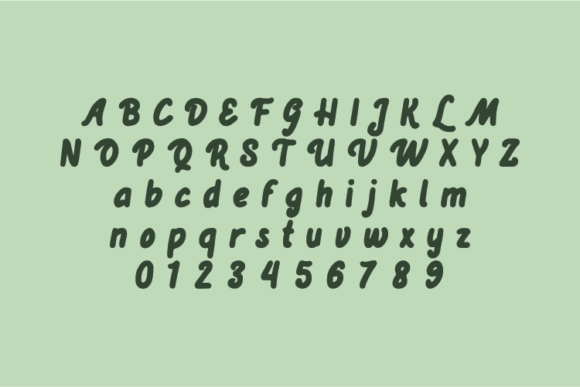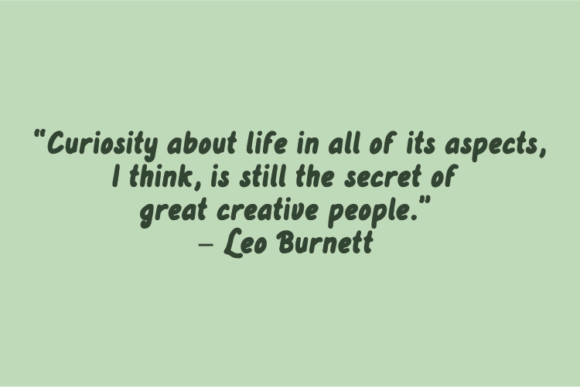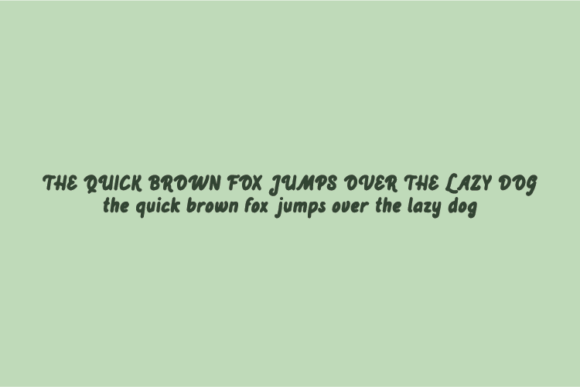
Discover the Charm of De Peown Font: A Sweet and Friendly Handwritten Font
Are you a designer or crafter looking for a font that can add a personal touch to your projects? Look no further than De Peown, a sweet and friendly handwritten font that’s perfect for a wide range of designs. With its natural and unique style, De Peown is incredibly versatile and can be used in various contexts, limited only by your imagination.
What Makes De Peown Font So Special?
De Peown font stands out from the crowd with its distinctive handwritten style that’s both sweet and friendly. The font’s natural look and feel make it perfect for designs that require a personal touch, such as invitations, greeting cards, and social media graphics. The unique style of De Peown also makes it an excellent choice for branding and packaging designs, adding a touch of warmth and approachability to your products.
Endless Possibilities with De Peown Font
The beauty of De Peown font lies in its versatility. Whether you’re designing a:
• Wedding invitation: Add a romantic touch to your wedding invitations with De Peown’s elegant and cursive script.
• Social media graphic: Make your social media posts stand out with De Peown’s friendly and approachable style.
• Branding material: Use De Peown to create a unique and memorable brand identity that resonates with your audience.
• Packaging design: Add a personal touch to your product packaging with De Peown’s warm and inviting style.
The possibilities are endless, and the only limit is your imagination!
Why Designers and Crafters Love De Peown Font
De Peown font has become a favorite among designers and crafters due to its:
• Unique style: De Peown’s distinctive handwritten style sets it apart from other fonts, making it perfect for designs that require a personal touch.
• Ease of use: De Peown is incredibly easy to read and use, making it perfect for designs that require a clear and concise message.
• Versatility: De Peown can be used in a wide range of designs, from formal to informal, and can be paired with various other fonts and graphics.
Tips for Using De Peown Font Effectively
To get the most out of De Peown font, here are some tips to keep in mind:
• Pair with other fonts: Experiment with pairing De Peown with other fonts and graphics to create a unique and visually appealing design.
• Use in combination with images: Combine De Peown with high-quality images to create a stunning design that tells a story.
• Experiment with colors: De Peown looks great in a variety of colors, so don’t be afraid to experiment and find the perfect hue for your design.
De Peown font is a sweet and friendly handwritten font that’s perfect for designers and crafters looking to add a personal touch to their projects. With its natural and unique style, De Peown is incredibly versatile and can be used in a wide range of designs. Whether you’re creating a wedding invitation, social media graphic, or branding material, De Peown is the perfect choice. So why wait? Discover the charm of De Peown font today and let your imagination run wild!